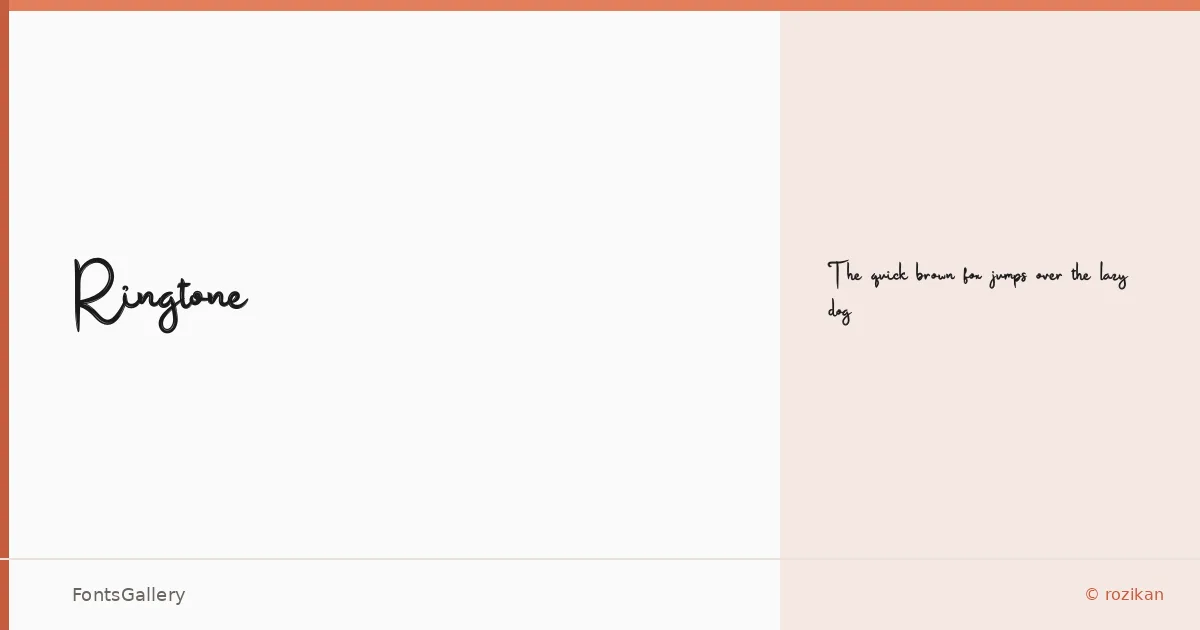
About Ringtone Font
There is a particular looseness to this script — the kind that reads as effortless rather than careless, where each letter seems to lean into the next with just enough momentum to feel alive. Ringtone is a handwritten face from designer rozikan at Productype, offered as a single Regular cut in OTF format. The forms carry that hand-drawn warmth without sacrificing legibility, sitting comfortably at the intersection of polish and personality.
The mood here is elegant and romantic with a genuinely playful undercurrent — qualities that are difficult to hold together, yet the letterforms manage it. The script feels modern rather than period-referential, with flowing strokes that work at display sizes without turning precious. Partial Latin coverage keeps the character set focused, which suits the intimate, small-text contexts this face is built for.
Wedding stationery, invitation cards, and greeting cards are the natural home for this script, and it transitions well into social media headers and branding lockups where a human touch is the point. For contrast, the listed pairings lean toward the coolly geometric or editorial — Helvetica, Asap, and ABC Arizona all supply the neutral backbone this script needs, while Canela and Anglecia Pro offer a softer, more literary complement when the job calls for warmth throughout.